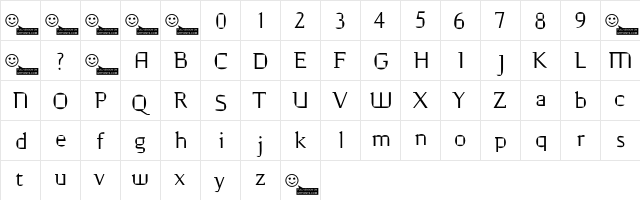
Easton Semi_demo
| Foundry | Sebastian Wieland |
| Designer | Sebastian Wieland |
Design Context for Easton Typeface
Easton takes a measured approach to typography — its balanced proportions and neutral character make it a reliable workhorse for both digital and print work.